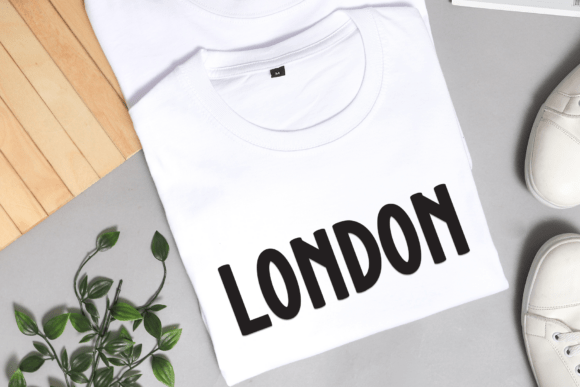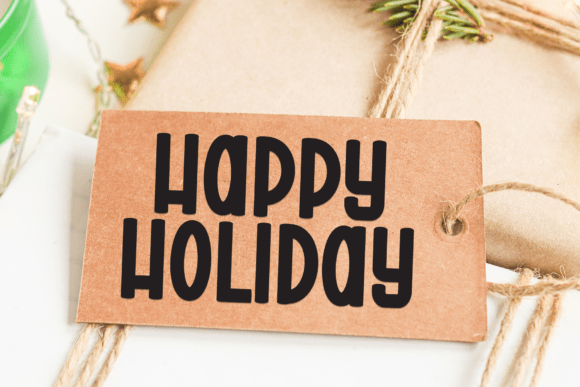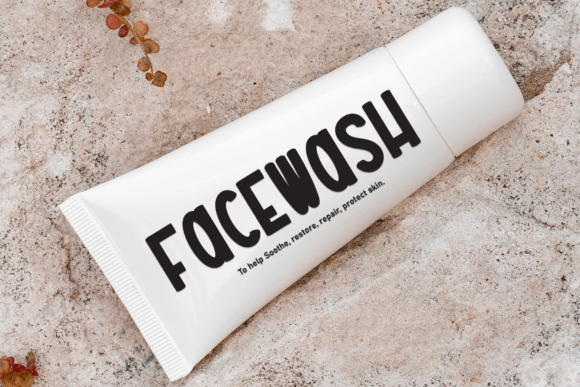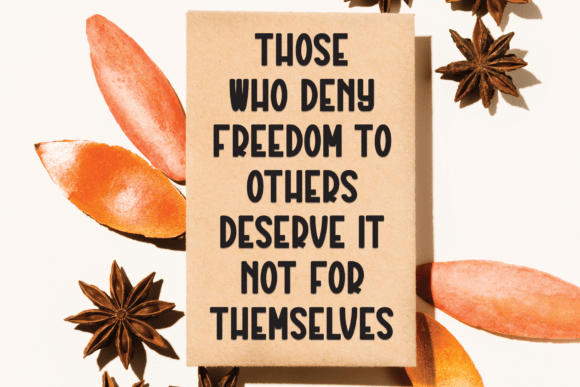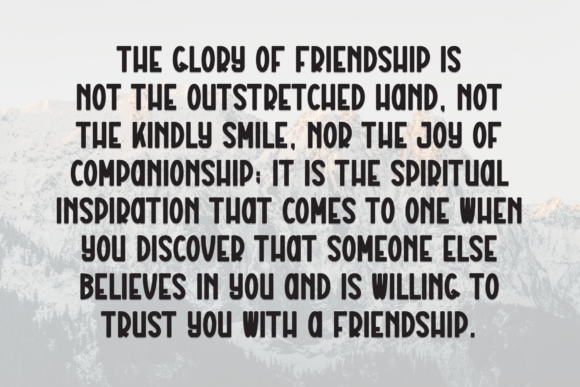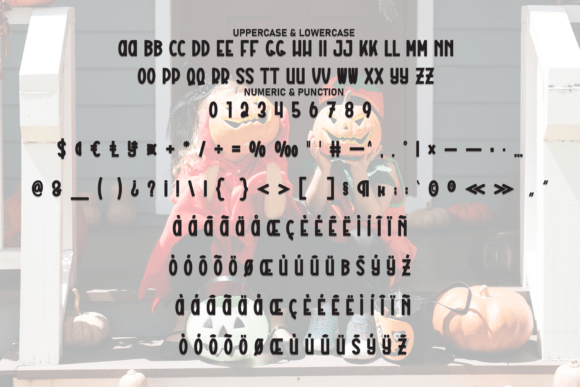
Happy Halloween Font: Add a Touch of Whimsy to Your Designs
As the spookiest time of the year approaches, designers and crafters are on the lookout for the perfect font to add a dash of eerie elegance to their creations. Look no further than the Happy Halloween Font, a unique handwritten display font that is sure to cast a spell on your audience. In this article, we’ll dive into the delightful features of this enchanting typeface and explore how it can elevate your design projects to new heights.
The Charm of Happy Halloween Font
Our Happy Halloween Font is a lovingly handcrafted typeface that exudes an irresistible allure with its delightful features. Each letter is carefully crafted to add an authentic and warm touch to your design landscape, making it perfect for a variety of creative projects. Whether you’re designing wedding invitations, greeting cards, or any other type of visual material, this enchanting font is sure to breathe magic into your work.
A Font for Every Design Project
The Happy Halloween Font is a versatile typeface that can be used in a wide range of design projects. Its inviting personality makes it perfect for:
- Wedding invitations: Add a touch of whimsy and romance to your wedding invitations with this enchanting font.
- Greeting cards: Create emotionally-resonant greeting cards that will leave a lasting impression on your recipients.
- Signs and posters: Use the Happy Halloween Font to create eye-catching signs and posters that will grab attention.
- Social media graphics: Elevate your social media graphics with a dash of whimsical creativity.
Delightful Features of Happy Halloween Font
So, what makes the Happy Halloween Font so special? Here are just a few of its delightful features:
- Handwritten style: Our font is lovingly handcrafted to give it a unique and authentic feel.
- Unique letterforms: Each letter is carefully crafted to add a touch of whimsy to your designs.
- Emotionally-resonant: The Happy Halloween Font is designed to evoke emotions and create a connection with your audience.
Why Choose Happy Halloween Font?
With so many fonts to choose from, why should you choose the Happy Halloween Font? Here are just a few reasons:
- Whimsical creativity: Our font adds a dash of whimsical creativity to your designs, setting them apart from the rest.
- High-quality design: Our font is designed to high-quality standards, ensuring that it will look great in any design project.
Tips for Using Happy Halloween Font
Here are a few tips for getting the most out of the Happy Halloween Font:
- Experiment with different sizes: Try using the font in different sizes to create visual interest.
- Pair with other fonts: Pair the Happy Halloween Font with other fonts to create a unique and eye-catching design.
- Use in combination with images: Use the font in combination with images to create a visually-appealing design.